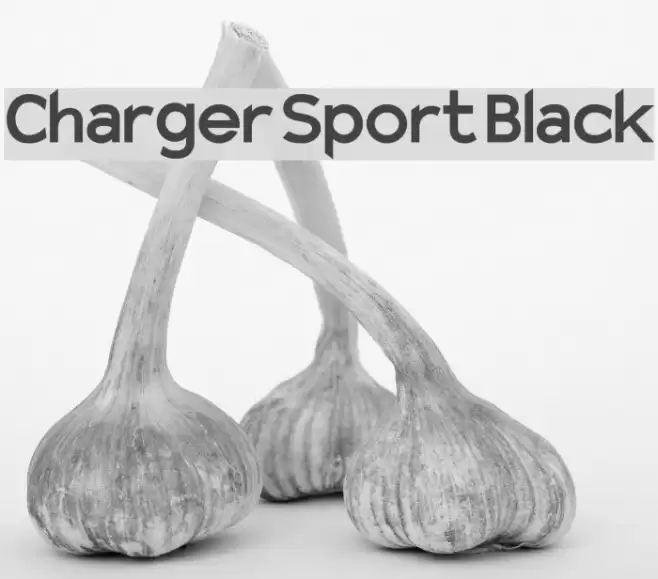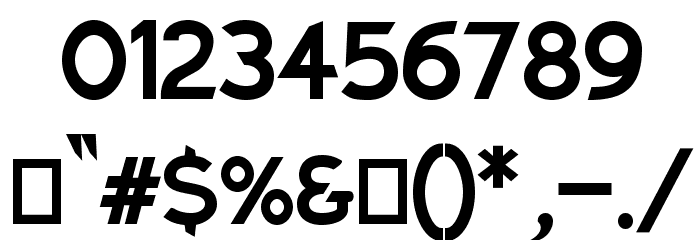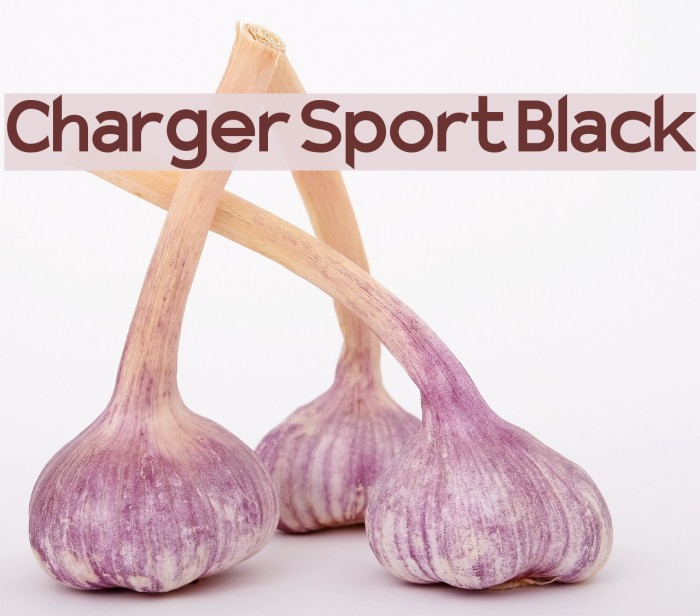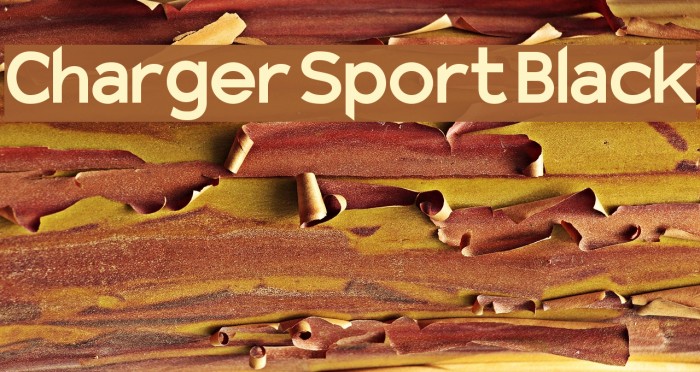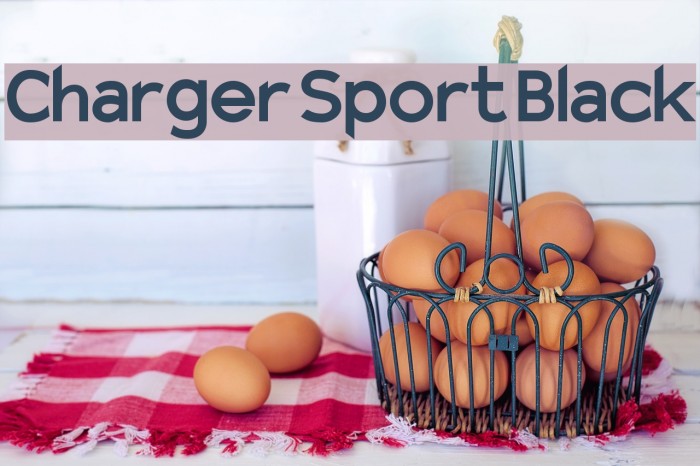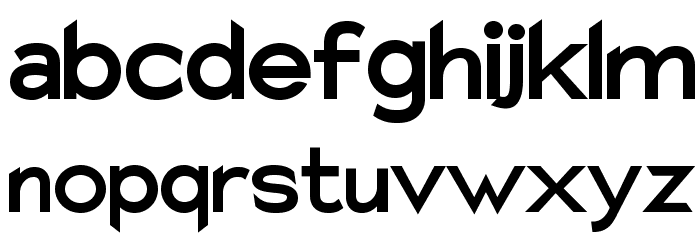
Charger Sport Black Font
Charger Sport Black Description
This font features a bold and modern sans-serif design with clean, geometric lines. The characters are well-proportioned and exhibit a strong presence, making them highly legible. The uppercase letters are uniform in height, while the lowercase letters maintain a consistent x-height, contributing to a balanced appearance. The numerals are distinct and easy to read, and the special characters are designed to complement the overall style. The font's bold weight and normal width make it suitable for impactful headlines and branding.
A bold, modern sans-serif font with clean, geometric lines from Uncategorized fonts.
- Proposed Projects: Ideal for branding, advertising, headlines, and digital media projects where a strong, modern presence is desired.